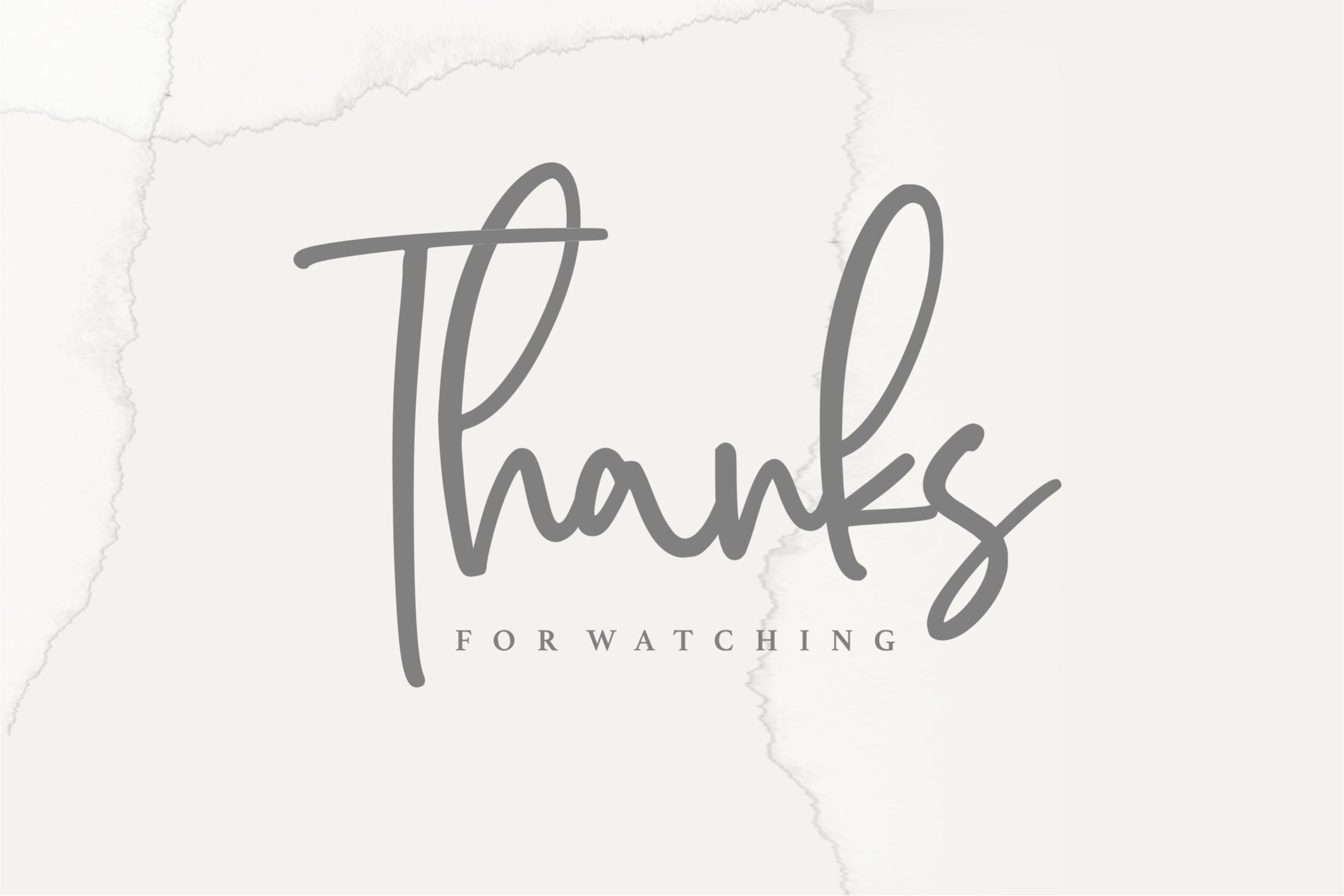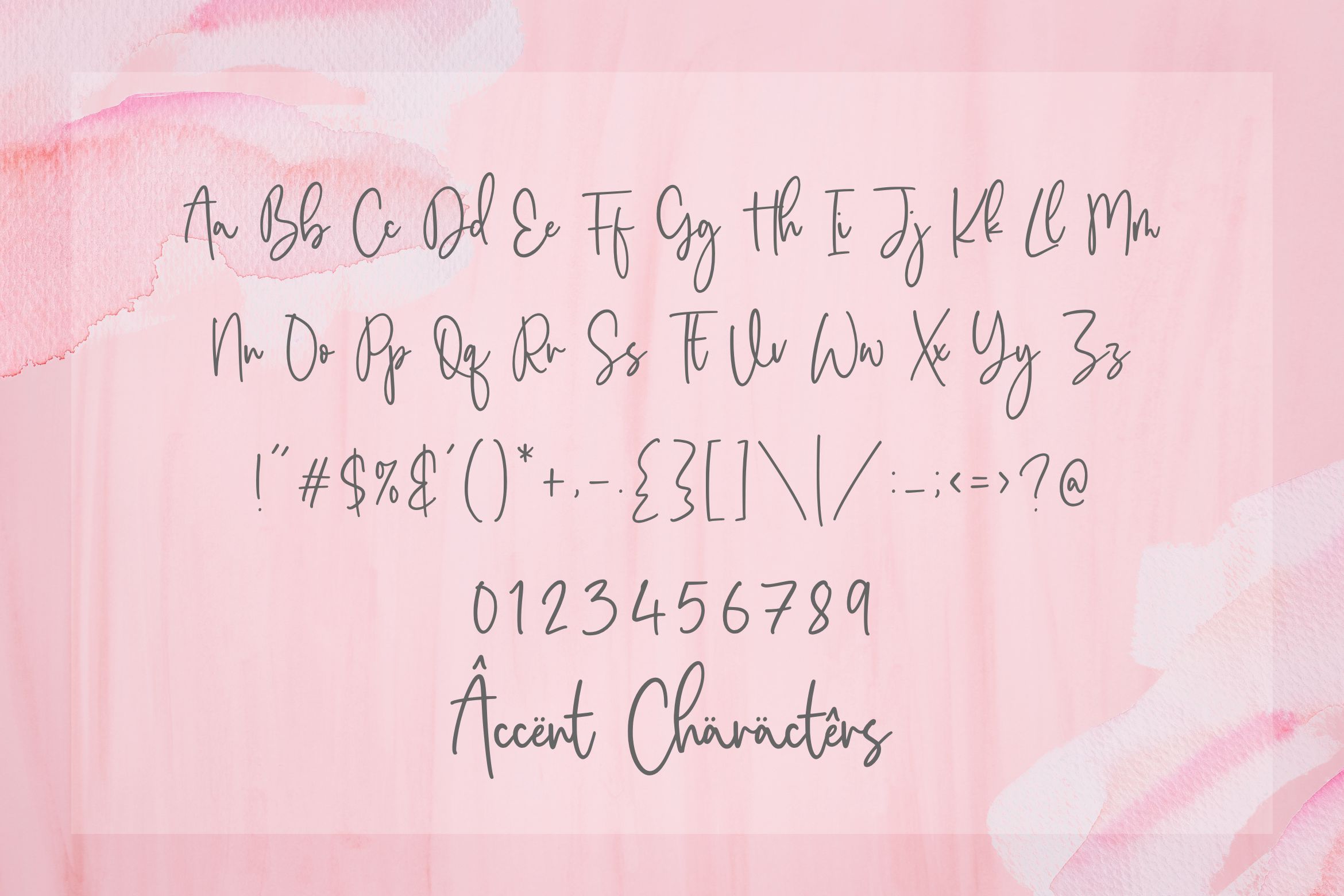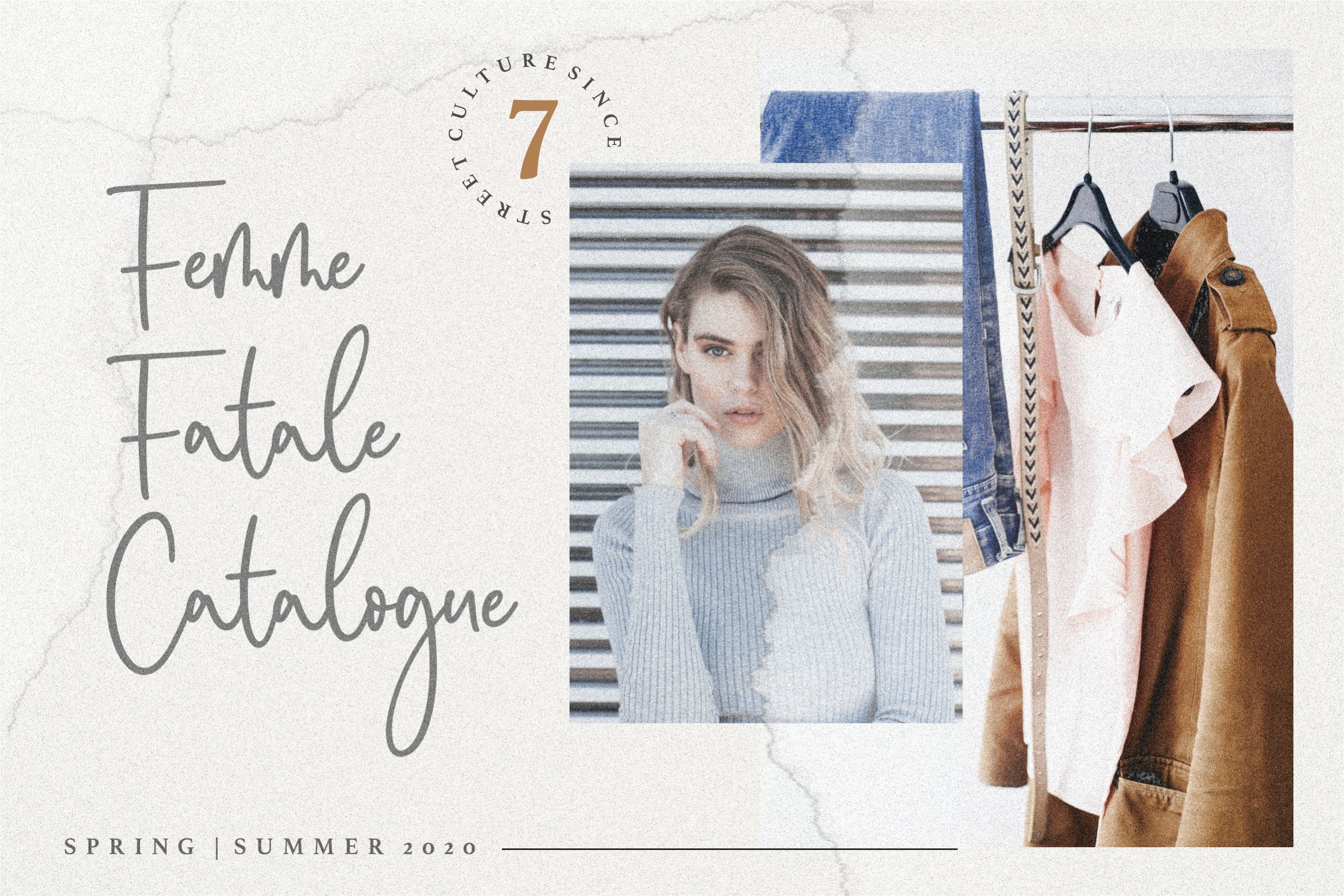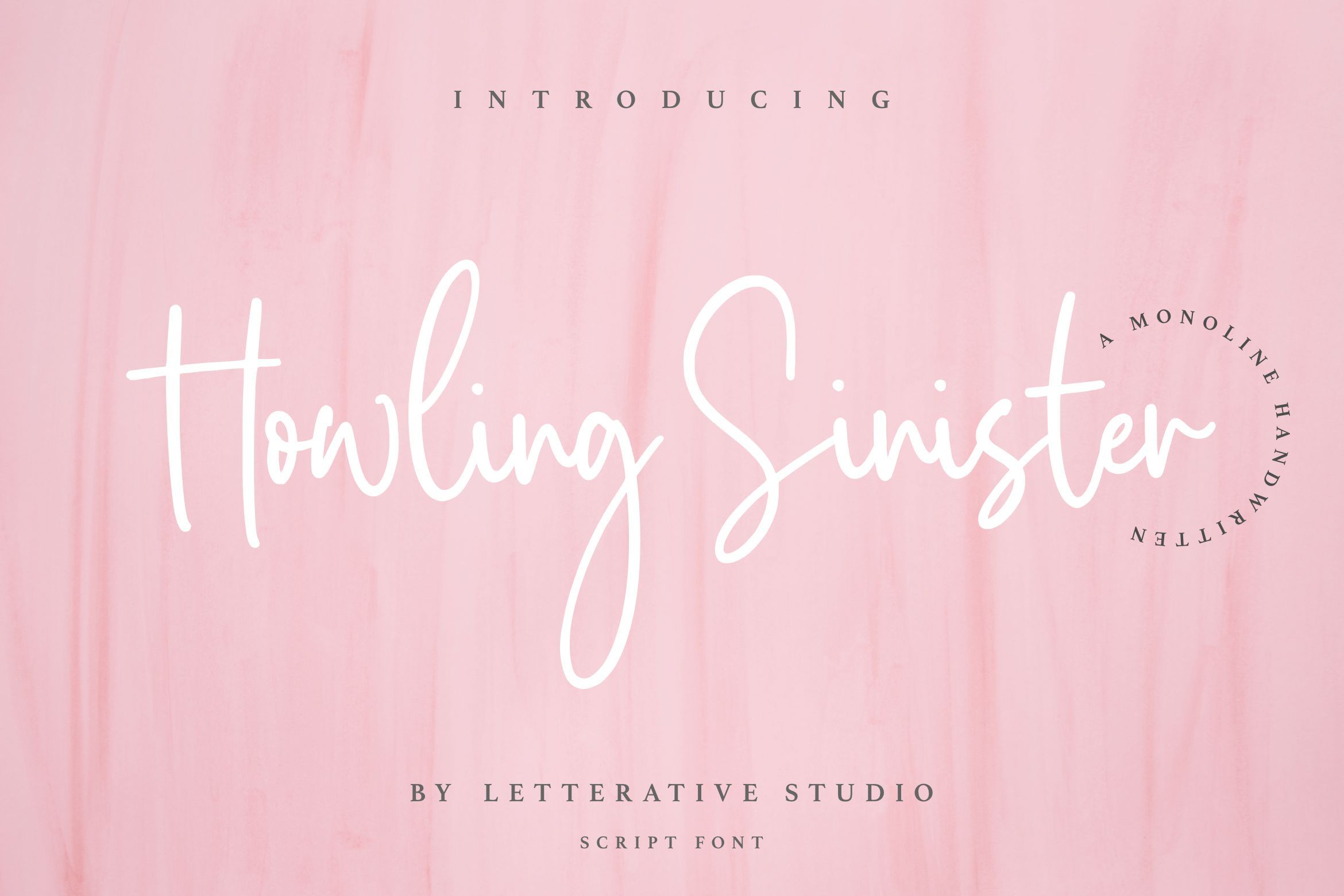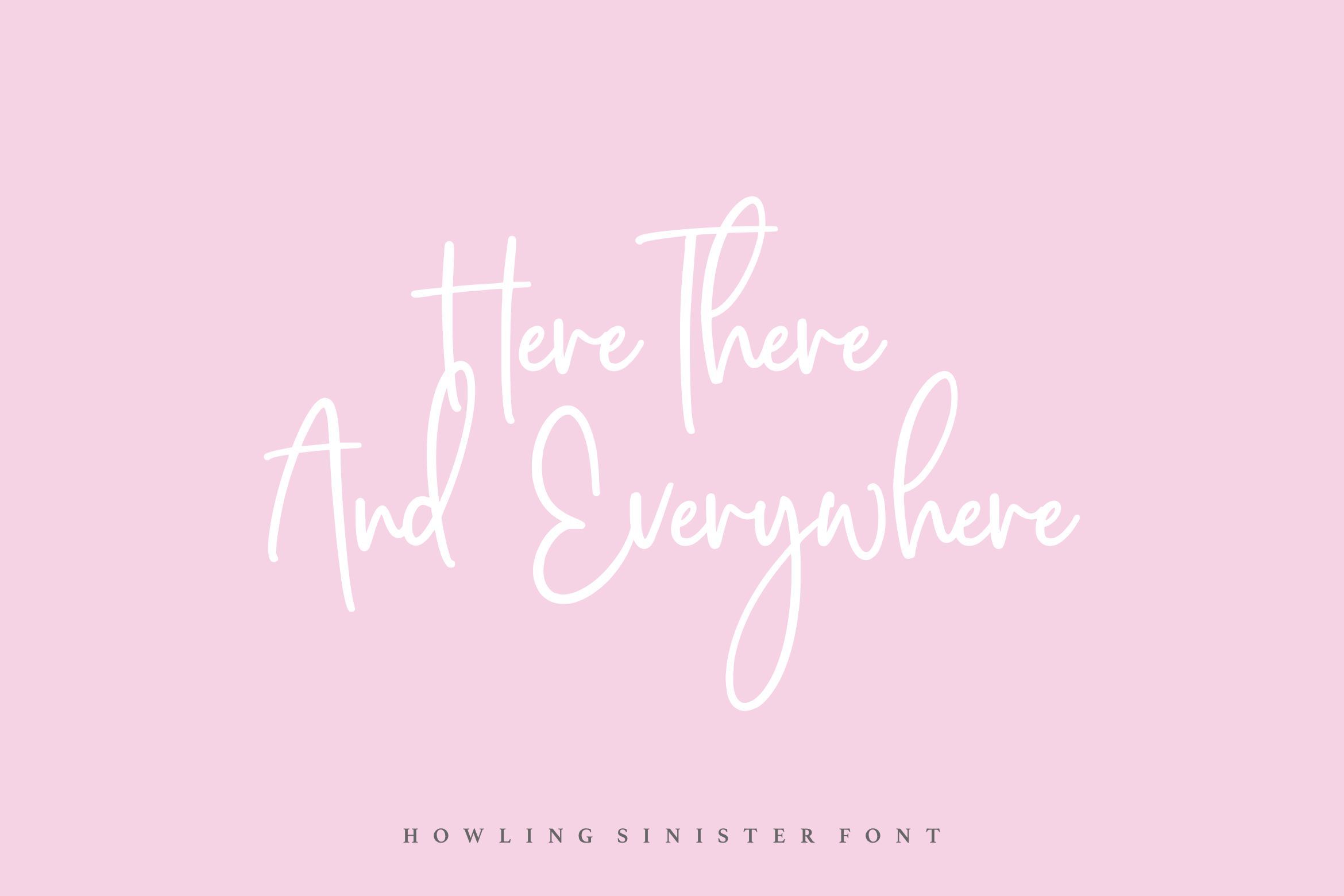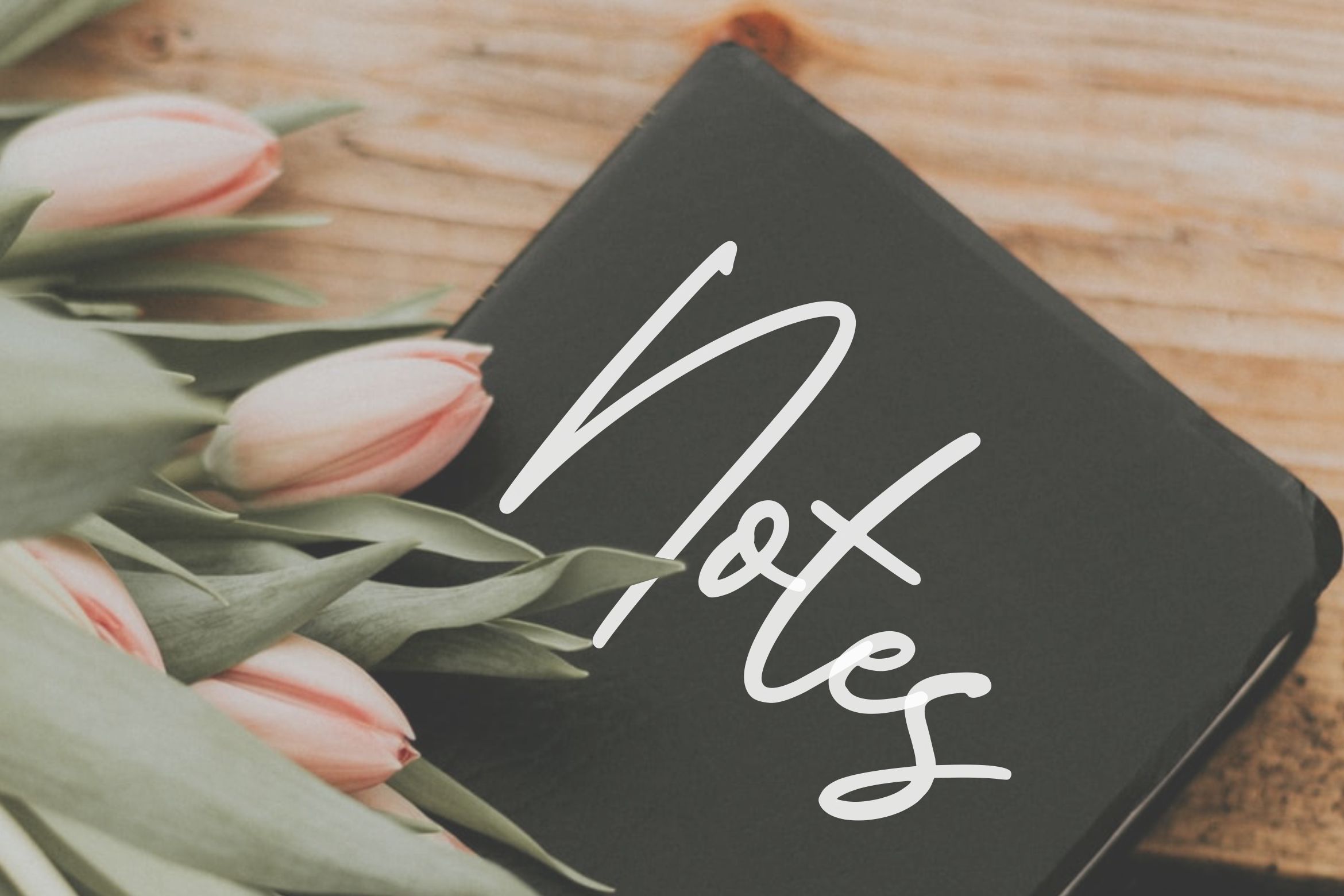
About Howling Sinister Monoline Handwritten Font
Introducing by Letterative Studio : Howling Sinister Font Howling Sinister is a Monoline Handwritten Font Howling Sinister is a lovely and elegant handwritten font. It will add an incredibly trendy touch to your designs. Add this beautiful font to each of your creative ideas and notice how it makes them stand out! This font includes : TTF and OTF Howling Sinister also multilingual support Enjoy the font! Feel free to comment or feedback Send me PM or email Thank you!